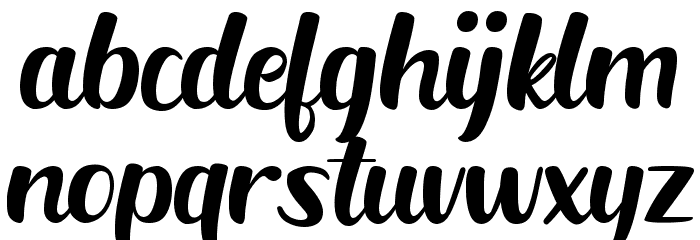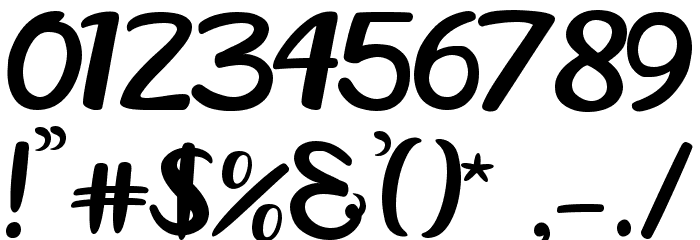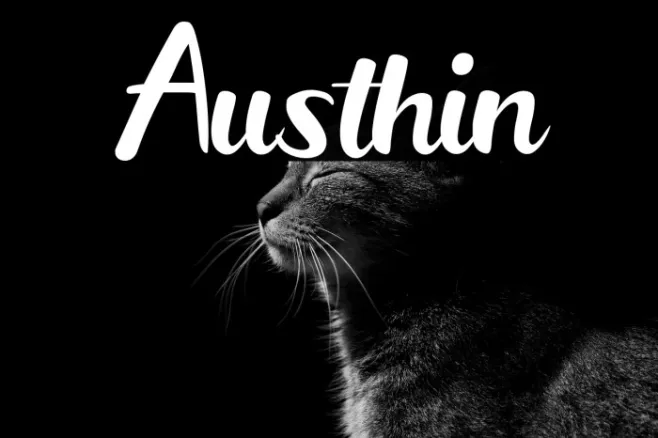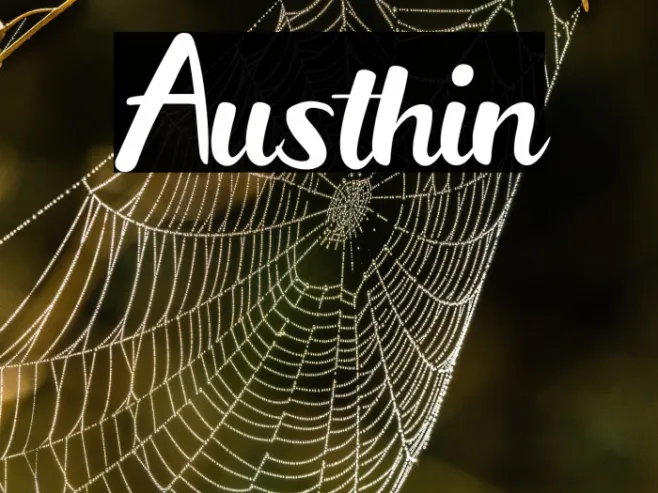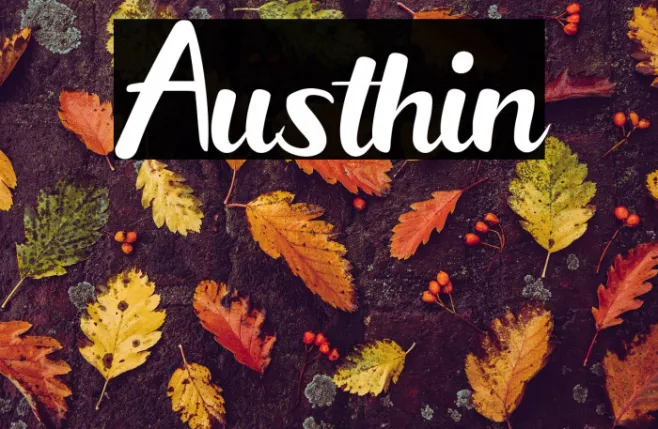
Austhin Font
This font features a dynamic and flowing script style that combines elegance with a modern touch. The uppercase letters are bold and slightly slanted, giving a sense of movement and grace. The lowercase letters maintain a consistent flow, with smooth curves and rounded edges that enhance readability. The numerals are well-proportioned and align seamlessly with the overall design. Special characters are crafted with the same attention to detail, ensuring they complement the alphabetic characters. This font is versatile, suitable for both formal and casual applications.
A dynamic and elegant script font with a modern touch.
- Proposed Projects: Ideal for wedding invitations, branding, logo design, and elegant packaging.